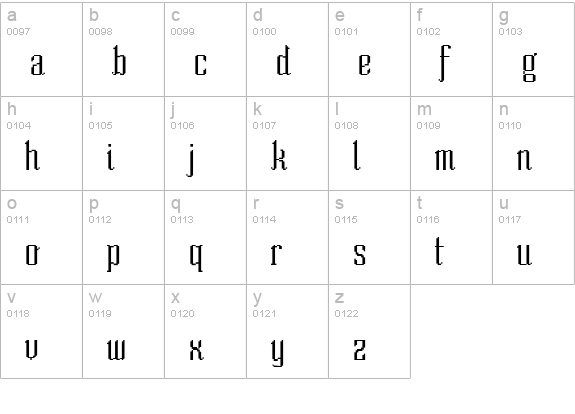
So Normal Font Details
So Normal is the standard, neutral variant in the So typeface family \xE2\x80\x94 well suited to general body text, paragraphs, and standard typographic work.
Introducing So Normal, a stunningly versatile font that effortlessly blends sophistication and simplicity. This font is the epitome of understated elegance, making it an ideal choice for a wide range of design projects. So Normal boasts clean lines and a timeless appeal that is sure to captivate any audience. Its sleek and modern design embodies a sense of refinement, while still maintaining an approachable and friendly vibe. Whether used for headlines, body text, or branding purposes, So Normal is guaranteed to make a lasting impression. But what truly sets So Normal apart is its unique ability to seamlessly adapt to any style or context. Whether used in a corporate setting or for personal projects, this font effortlessly compliments any design aesthetic. From minimalist to ornate, So Normal effortlessly blends in while adding an extra touch of sophistication. But the best part? So Normal is not only visually stunning, but it is also freely available to download at FontsMarket.com. This means that you can enhance your creative projects without any additional cost. Say goodbye to expensive font licenses and hello to endless design possibilities. So, if you're looking for a font that exudes timeless elegance, versatility, and is freely accessible, look no further than So Normal. Download it today from FontsMarket.com and experience the transformative power of this exceptional typeface.